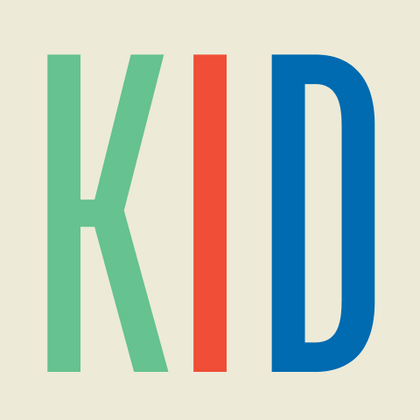
TT Nooks Serif is a display modern serif with a slight touch of egocentricity. It has a sharp and firm, yet elegant and stately character.
Kid fonts
Children’s typography requires thoughtful design to support early reading development. Kid fonts feature rounded forms, increased lowercase height, and an approachable character that simplifies letter recognition. The TypeType collection includes both playful, handwritten styles for preschool materials and structured educational fonts with clearly distinguishable symbols—helping young learners engage with text effortlessly.
TT Dott is an experimental pixel grotesque where a circle is used as the base for the pixel. It is a fluid and unusual display font, evoking associations with embroidery and techno parties all at once.
TT Bakers is a fluid serif with a gentle and lively character. This font is like freshly baked goods: it`s warm and soft, especially in its bolder weights.
TT Ricordi Greto is an experimental project, inspired by a floor plaque dating from 1423 found in the Basilica di Santa Croce, Florence.
TT Biersal is a display sans serif with a free-spirited, playful, and adventurous nature. The concept of this font was sparked by a German poster from the early 1930s.
TT Paplane is a squared-looking display sans serif.
TT Cometus is an expressive typeface that captivates from the first time.
TT Globs is the first font from the TypeType Starter Kit line.
TT Rounds Neue soft, friendly, rounded sans serif fontfamily
TT Smalls is now a decorative font that makes it easy to attract attention.
TT Ricordi Marmo is an original experimental project inspired by inscriptions at Basilica di Santa Croce in Florence.
The TT Ricordi font family is a collection of three display heading serifs.
TT Marxiana Elzevir is a title or header font and is a compilation of monastic Elzevir that were actively used in the Niva magazine for all its prints.
TT Geekette is an experimental variable serif with friendly and flexible character of shapes.